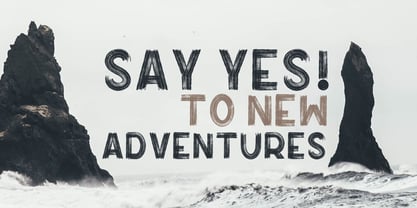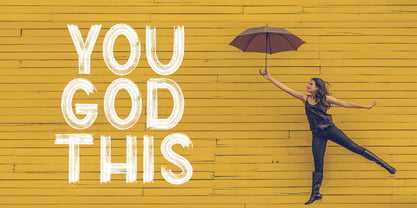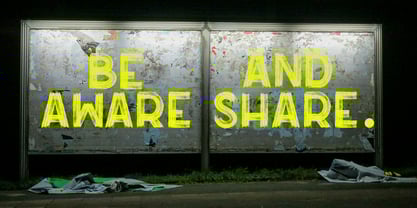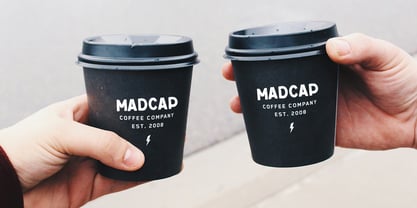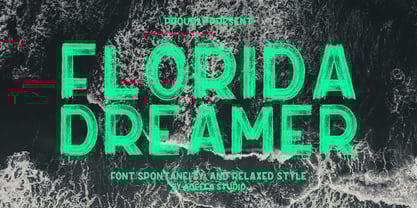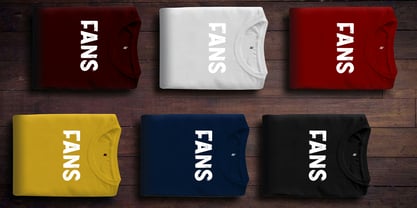
Florida Dreamer
by Aqeela Studio
The Florida Dreamer Font Family was designed by Muhammad Nasir and published by Aqeela Studio. Florida Dreamer contains 1 styles.
Florida Dreamer captures the essence of spontaneous creativity with its bold, hand-painted strokes. This font isn't about perfect lines and polished edges; it's about the raw energy of a brush on canvas, the freedom of expressive lettering. Think sun-drenched afternoons and carefree vibes – Florida Dreamer brings that relaxed, artistic spirit to life. 1 With its textured edges and unapologetically bold presence, it's the perfect choice for designs that crave a touch of authentic, hand-crafted charm. From surf-inspired graphics to casual branding, this font adds a splash of vibrant personality and a touch of that unmistakable "Sunshine State" feeling.